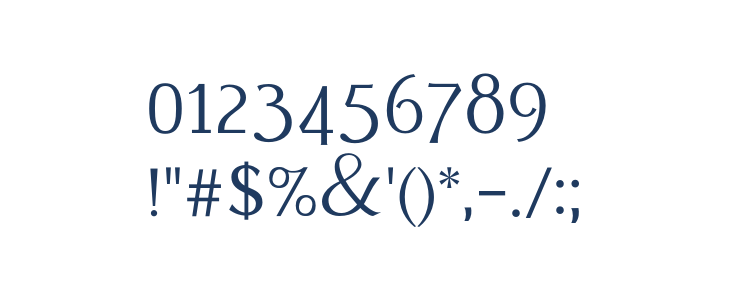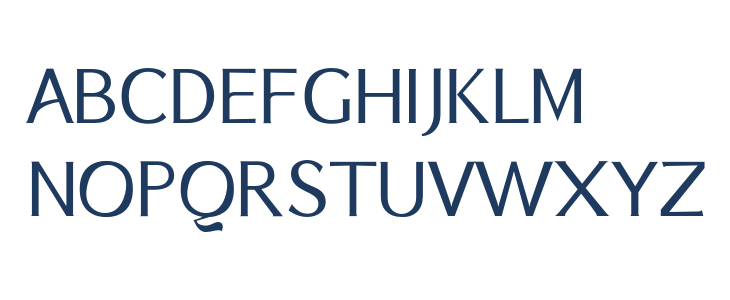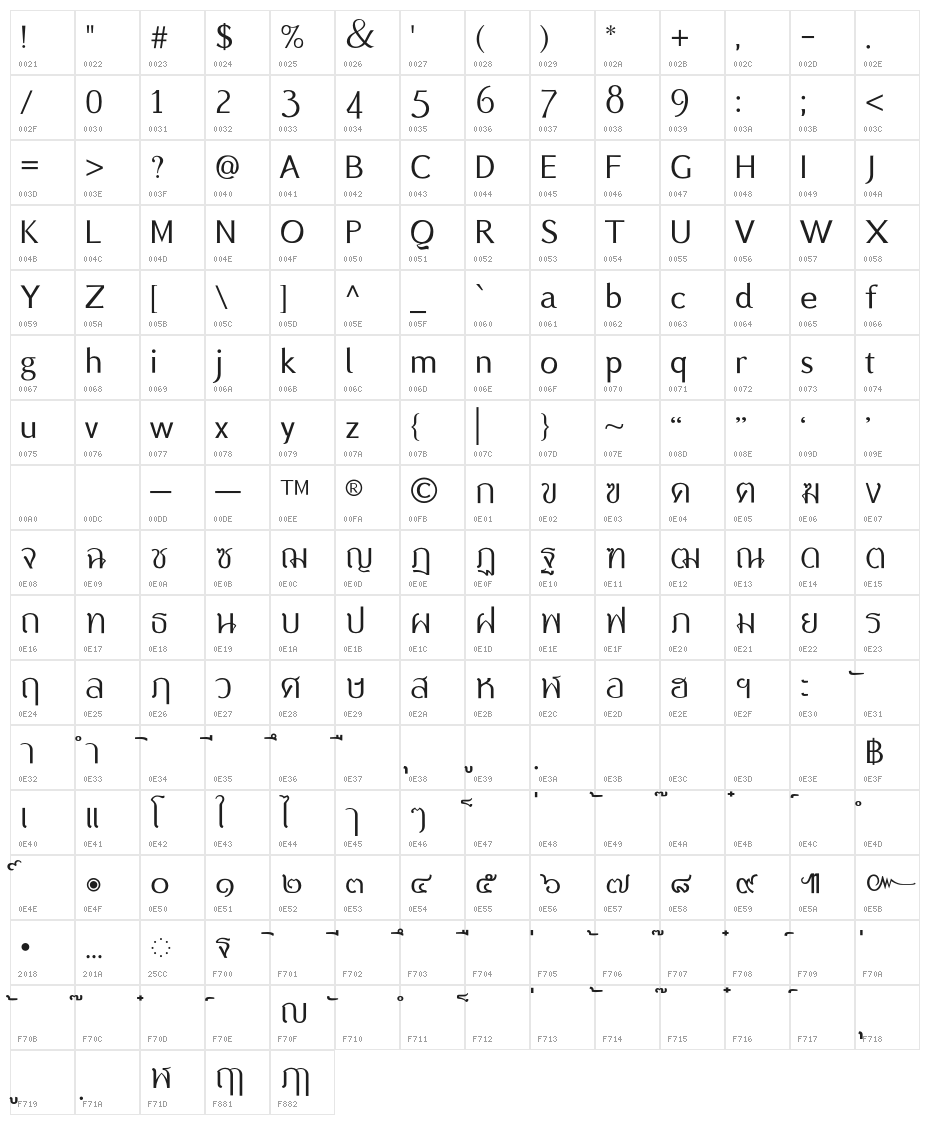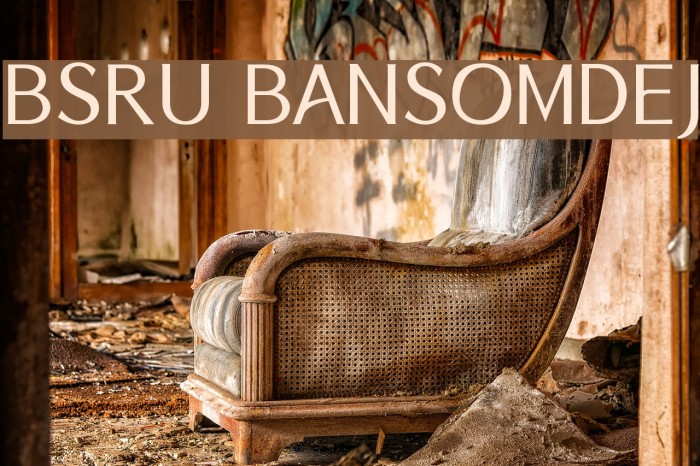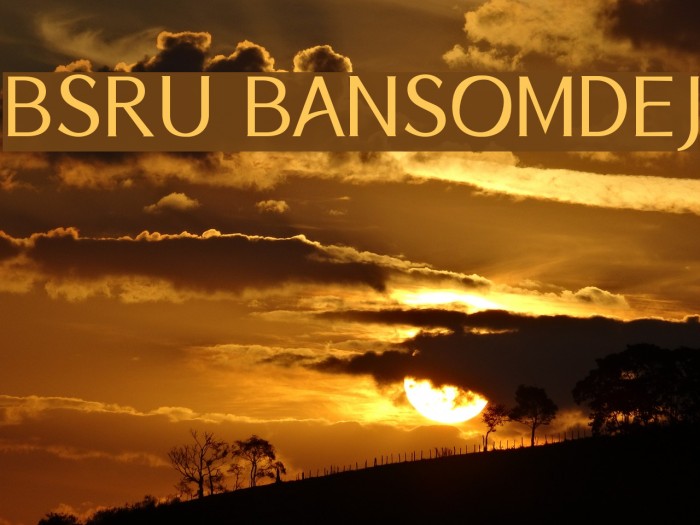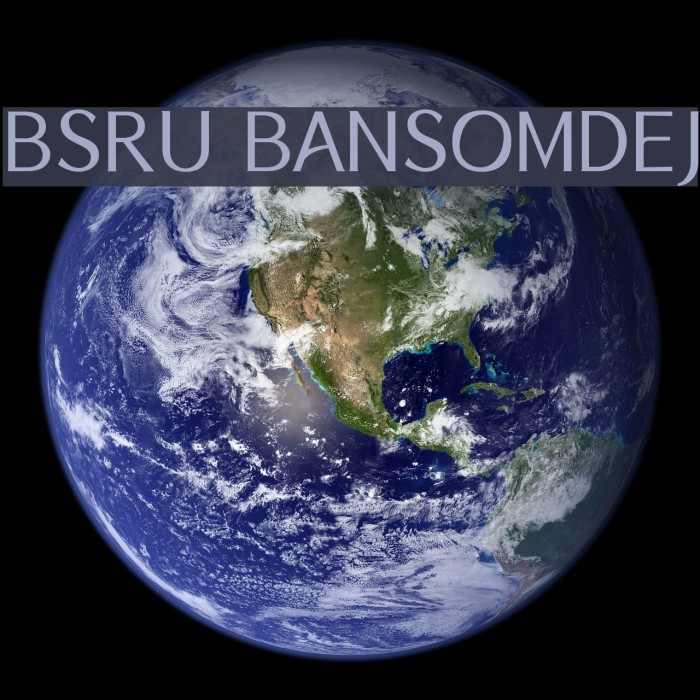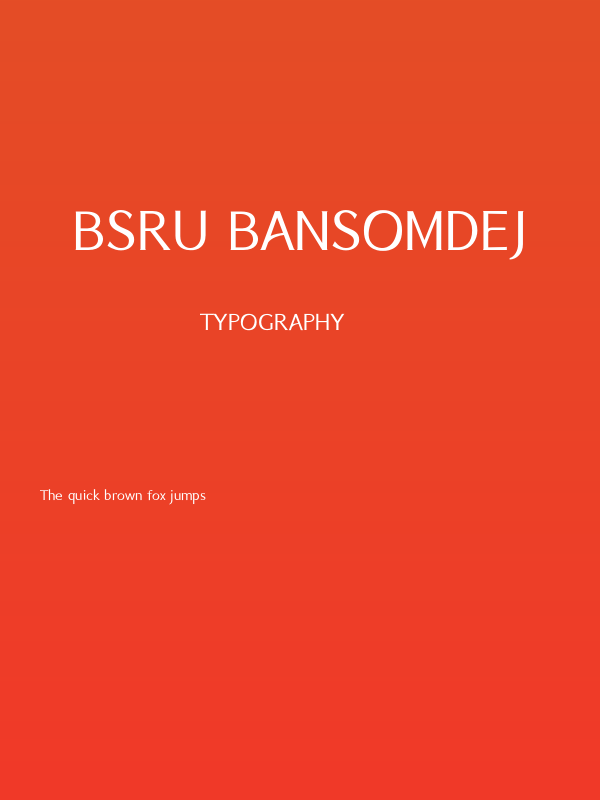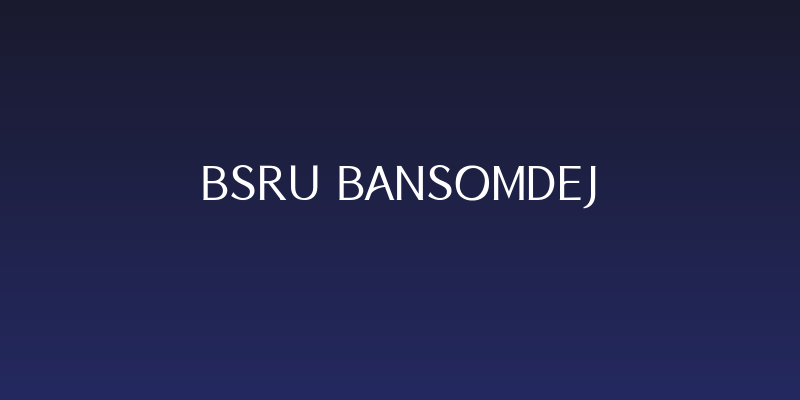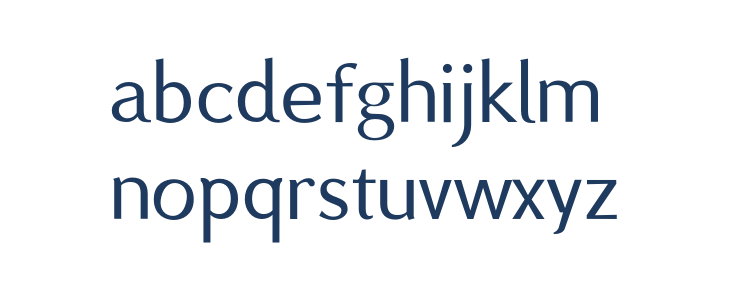
BSRU BANSOMDEJ Font
BSRU BANSOMDEJ Description
This font features a clean and modern design with a balanced structure that combines both elegance and readability. The uppercase letters are slightly taller than average, providing a sense of authority and sophistication. The lowercase letters maintain a consistent height, contributing to a harmonious appearance. The numerals are well-proportioned, ensuring clarity in numerical data presentation. Special characters are distinct and easily recognizable, enhancing the font's versatility. The overall design is suitable for both digital and print media, making it a versatile choice for various applications.
| Proposed Projects | Ideal for branding, editorial design, corporate communications, and web design. |